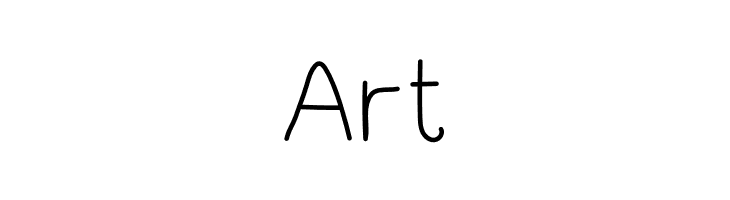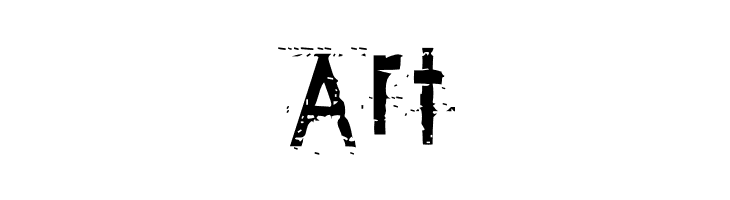
A bold, expressive brush-style font with dynamic, handcrafted strokes.
A playful, hand-drawn style font with irregular, textured strokes.
A clean, rounded font with a friendly and approachable style.
A bold, distressed font with a grunge, textured appearance.
A dynamic and expressive handwritten font with fluid strokes and artistic flair.
A robust slab serif font with a modern yet classic appeal.